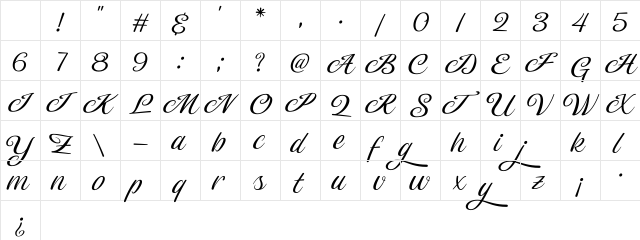
Magiera flows with the natural rhythm of handwritten lettering, making it ideal for designs that call for warmth and personal expression.
Font Pairing: Combine Magiera with a simple geometric sans for maximum contrast - the tension between flowing curves and clean structure is a classic typographic pairing.
Pro Tip: Use Magiera for short runs of text - names, titles, or taglines. Extended body copy in script faces tires the eye quickly.